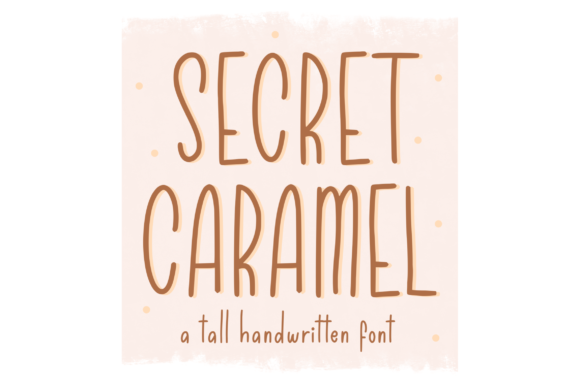
Step into the world of expressive typography with Secret Caramel, a tall handwritten font that drips with elegance and charm. Crafted by the skilled artisans at qwrtypefoundry, this script font is more than just a collection of letters - it's an invitation to unleash your creativity and make a lasting impression.
With its elongated ascenders and descenders, Secret Caramel adds a touch of whimsy and playfulness to any design. Its tall, slender structure creates a visual impact that captivates the eye, making it perfect for product packaging, branding projects, and social media posts. Imagine your words dancing across the screen, capturing the attention of your audience and leaving them spellbound.
Secret Caramel is not just a font; it's a versatile tool that empowers you to express your unique voice. Whether you're designing a wedding invitation, creating a magazine layout, or simply adding a personal touch to your social media posts, this font will elevate your words and make them shine. Its tall, slender structure is perfect for adding a touch of elegance and sophistication to any project.
So, dive into the world of Secret Caramel and let your creativity soar. Let your words take on a new life, filled with personality and flair. With this tall handwritten font at your disposal, the possibilities are endless. Embrace the beauty of tall letters and watch as your designs transform into captivating masterpieces.